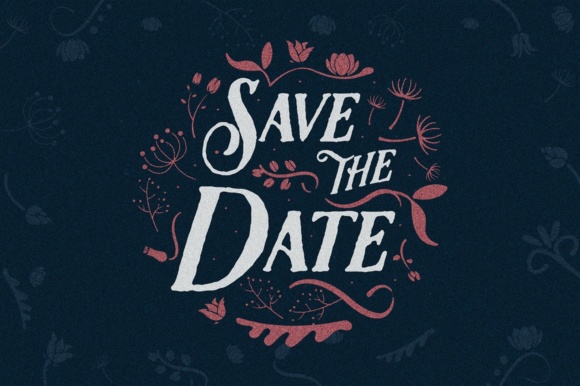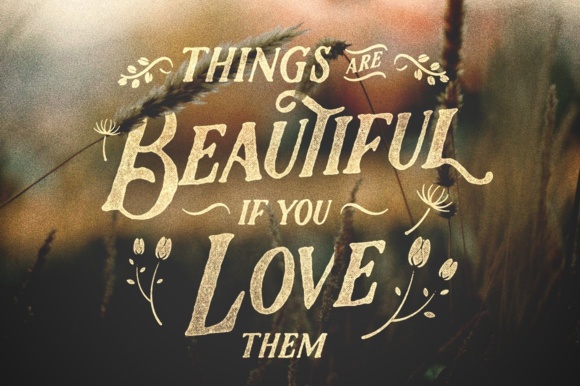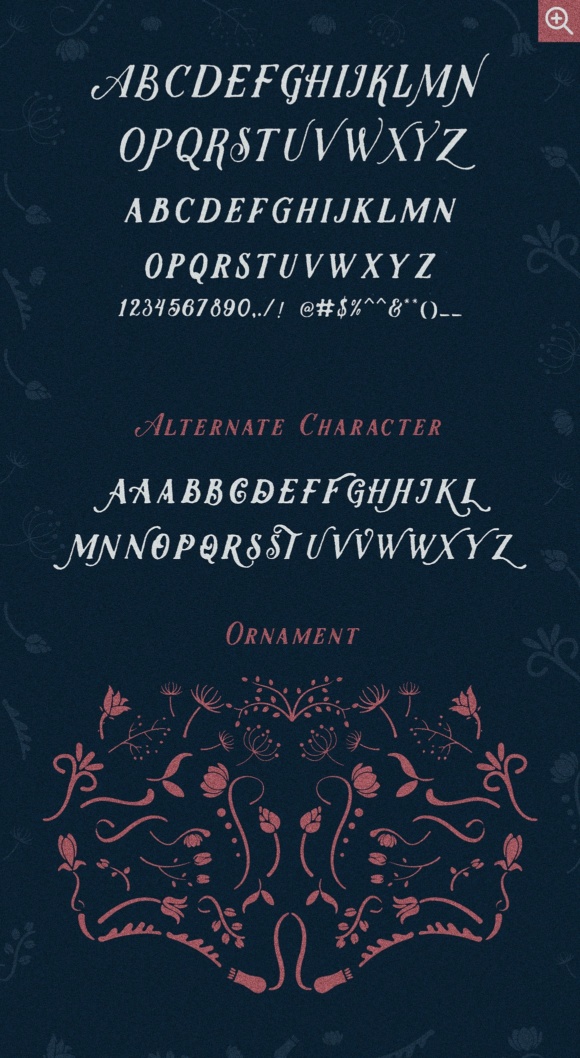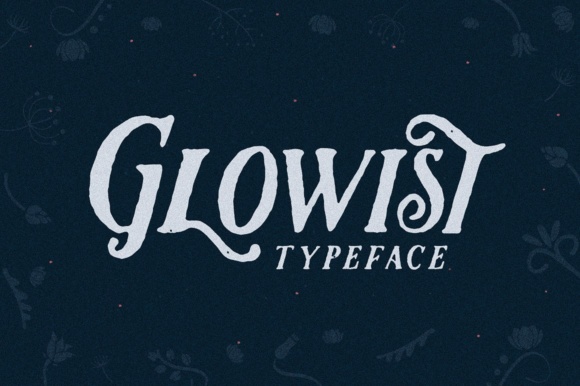
Introducing Glowist Font: A Whimsical Serif Font for Your Creative Projects
Are you a designer, crafter, or DIY enthusiast looking for a unique and captivating font to add a touch of magic to your creative projects? Look no further than Glowist Font, a stunning serif font crafted with love and care. In this article, we’ll dive into the world of Glowist, exploring its features, benefits, and uses, and why it’s a must-have for anyone seeking to add a dash of whimsy to their designs.
What is Glowist Font?
Glowist is a beautiful, hand-made serif font that exudes an organic and textured feel, reminiscent of traditional storybook typography. Its distinctive charm lies in its imperfections, carefully crafted to evoke a sense of nostalgia and wonder. With Glowist, you can add a touch of personality to your designs, setting them apart from the ordinary.
Key Features of Glowist Font
• Hand-crafted with love: Each letterform has been meticulously designed and crafted to ensure a unique, human touch.
• Organic and textured feel: The font’s texture and imperfections give it a charming, storybook-like quality.
• Serif font: Classic and elegant, the serif design adds a touch of sophistication to any project.
• Ornaments included: The download comes with additional ornaments to spark your creativity and help you create stunning designs.
Why Choose Glowist Font?
Glowist Font is an excellent choice for designers, crafters, and DIY enthusiasts seeking to add a dash of personality to their projects. Here are just a few reasons why:
• Unique and eye-catching: Glowist’s distinctive design ensures your projects will stand out from the crowd.
• Versatile: Suitable for a wide range of projects, from storybooks and children’s products to branding, packaging, and more.
• Easily readable: Despite its ornate feel, Glowist remains highly legible, making it perfect for body text and headlines.
Using Glowist Font in Your Projects
The possibilities are endless with Glowist Font! Here are a few ideas to get you started:
• Storybooks and children’s products: Create captivating stories, nursery rhymes, or children’s games with Glowist’s whimsical charm.
• Branding and packaging: Add a touch of personality to your brand’s identity, labels, and packaging with this unique font.
• DIY crafts and scrapbooking: Use Glowist to create beautiful journal pages, scrapbook layouts, or handmade cards.
• Web design and blogging: Add a dash of whimsy to your website or blog with Glowist, perfect for headers, titles, or quotes.
Tips and Tricks for Working with Glowist Font
To get the most out of Glowist Font, here are a few tips and tricks:
• Experiment with sizes and colors: Play with different font sizes and colors to create visual interest and hierarchy.
• Mix and match with other fonts: Combine Glowist with other fonts to create striking contrasts and add depth to your designs.
• Use ornaments creatively: Incorporate the included ornaments to add a touch of magic to your designs, such as borders, frames, or icons.
Glowist Font is a captivating, hand-crafted serif font that adds a touch of whimsy and personality to any project. With its organic texture, charming imperfections, and included ornaments, it’s the perfect choice for designers, crafters, and DIY enthusiasts seeking to create something truly special. Download Glowist Font today and unlock a world of creative possibilities!